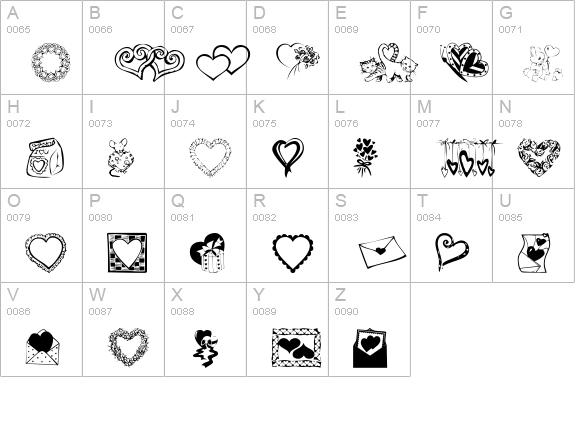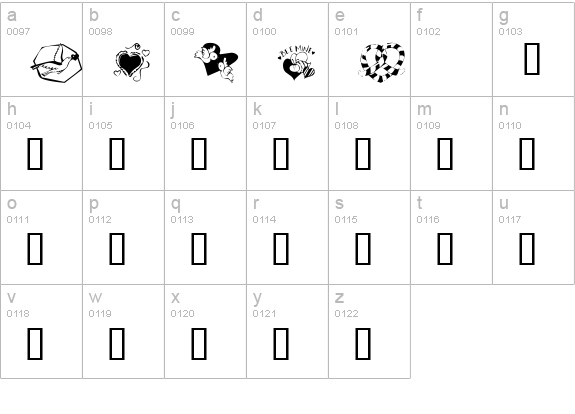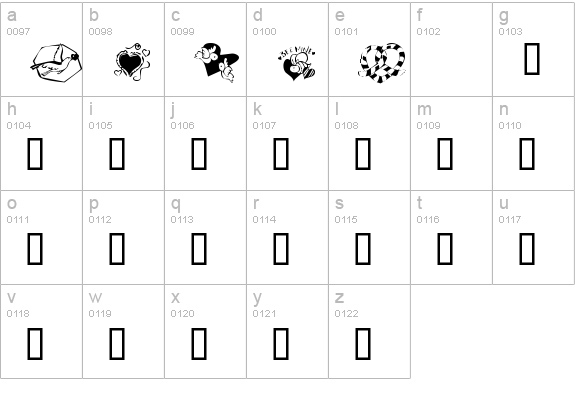
KR Kat's Got A New Valentine Font Details
KR Kat's Got A New Valentine font is a whimsical and charming typeface perfect for adding a touch of sweetness to your projects. With its playful curves and romantic flair, this font captures the essence of love and celebration. Whether you're creating greeting cards, love notes, or wedding invitations, KR Kat's Got A New Valentine font will bring a sense of joy and warmth to your designs. The best part? This lovely font is available for free download at FontsMarket.com. So go ahead and spread the love with KR Kat's Got A New Valentine font today!